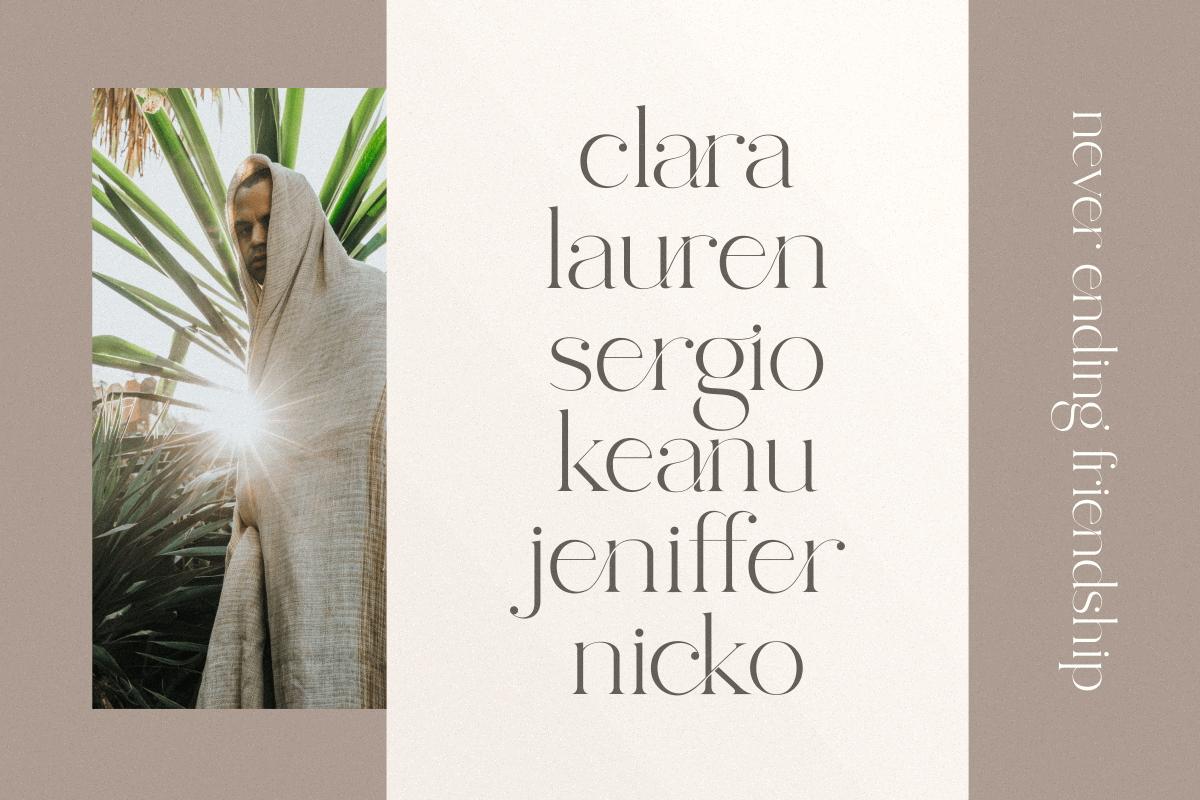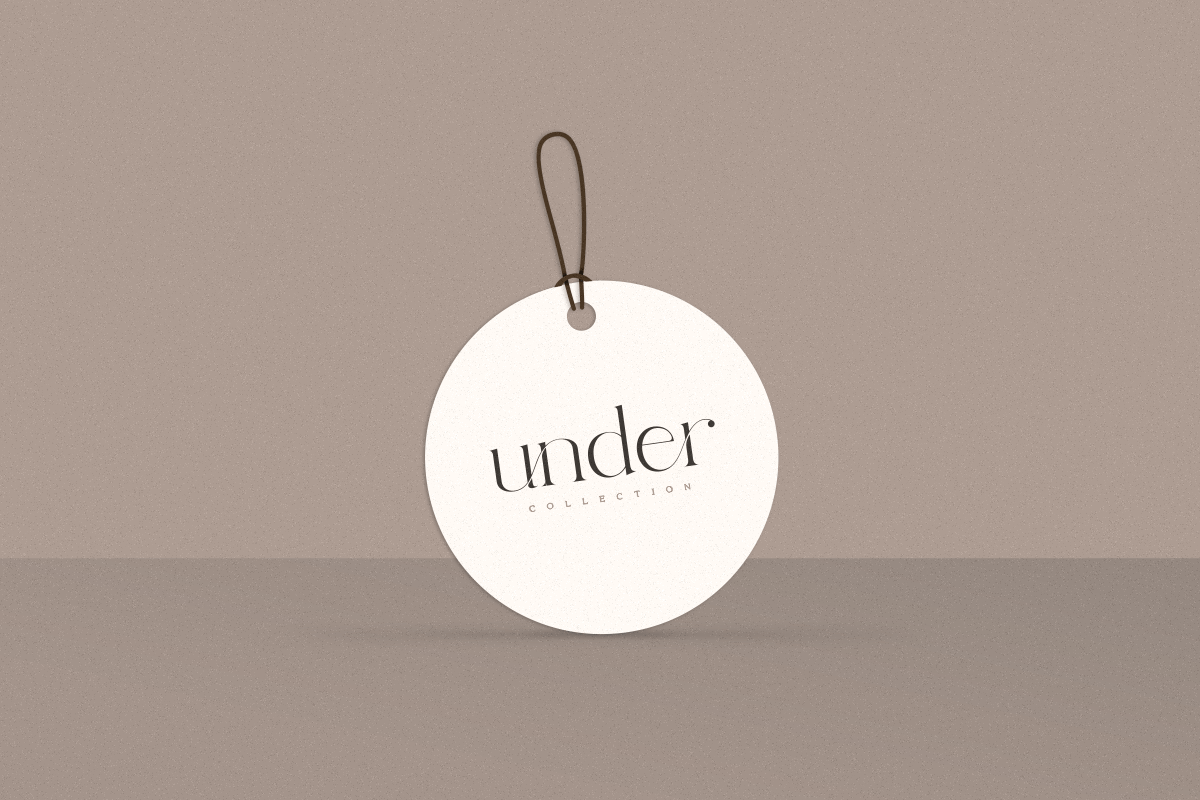
Abigail is a unique ligature font that is suitable for design projects; playful theme, logo, branding, poster, quotes, display, beautiful stationary art, eye-catching social media posts, and cute greeting cards, and any other designs. Based on our experience as a graphic designer who works for a lot of companies, we often are requested to design a logo in a unique style but with an elegant shape.
- uppercase and lowercase letters
- multilingual symbols
- numerals
- punctuation